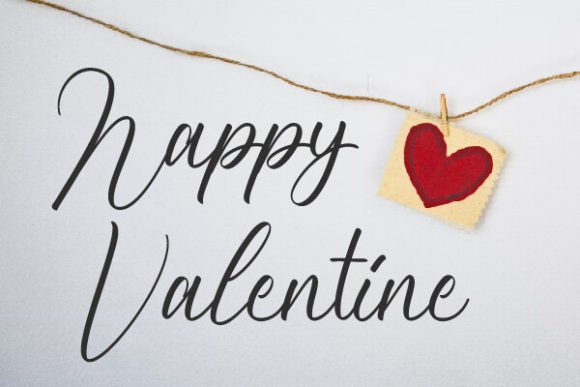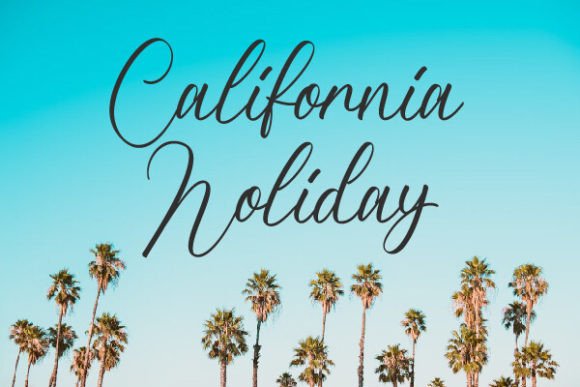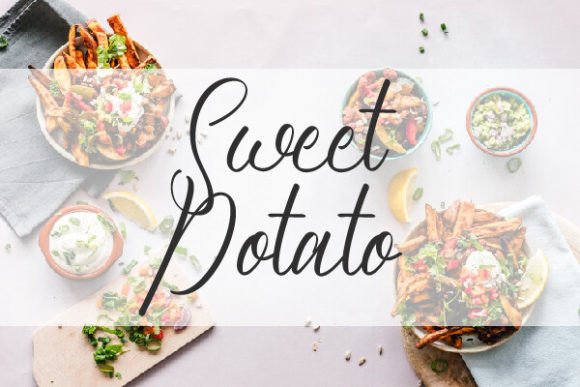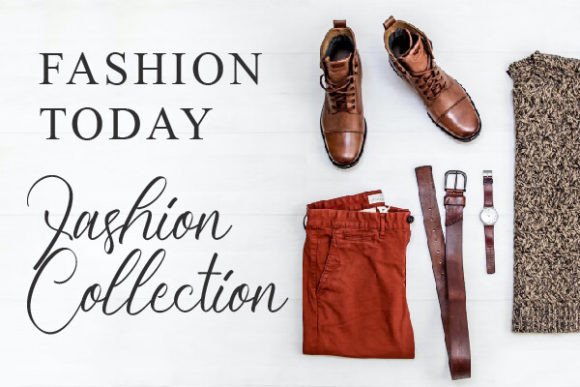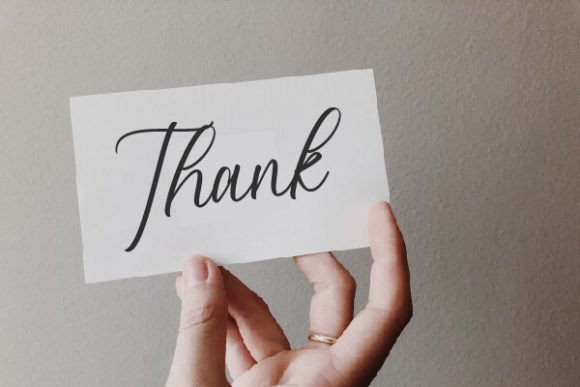
The Art of Elegant Design: Discovering the Timeless Charm of Gralynda Font
Have you ever sat down with a blank page, a pen, and a vision, only to be swept away by the possibilities of what could be? For designers, this moment of creative freedom is a thrill unlike any other. It’s the spark that ignites the flame of inspiration, and it’s precisely this spark that the Gralynda Font is designed to fan into a roaring fire.
With its flowing strokes and classic charm, the Gralynda Font adds a touch of sophistication to any design. This beautiful calligraphy font is ideal for invitations, cards, and decorative text, effortlessly capturing the artistry of calligraphy. Whether you’re a seasoned designer or just starting out, the Gralynda Font is a valuable addition to your toolkit, offering a timeless and stylish appeal that elevates every word into a work of art.
Gralynda Font Key Features
- Font Family: Gralynda Font is a beautiful, elegant script font.
- Size: The font contains 400 glyphs, including uppercase and lowercase letters, numbers, and punctuation marks.
- Unique Characteristics: Gralynda Font features swashes, alternate letters, and ligatures to create a unique and sophisticated look.
Gralynda Font Review
Overall, I think Gralynda Font is a unique and stylish addition to any design project. It has a certain whimsical quality that can add a touch of magic to your text. ✨
- Its hand-drawn feel is perfect for creative and artistic projects.
- The font’s fluidity and smooth lines make it easy to read, even at smaller font sizes.
- Gralynda Font is highly versatile and can be used for a wide range of applications, from branding to publishing.
However, like any font, Gralynda has its limitations. ⚠️
- The font may not be suitable for formal or professional settings, as its playful nature may come across as unprofessional.
- Some letters, such as ‘k’ and ‘q’, may be difficult to read at certain font sizes or angles.
- Gralynda Font may not be compatible with all operating systems or devices, which could cause display issues.
Overall, I think Gralynda Font is a great choice for designers who want to add a touch of personality to their projects. While it may have some limitations, its unique style and versatility make it a valuable addition to any design library.
Tips for Getting the Most Out of Gralynda Font
To get the most out of Gralynda Font, use it for:
- Emphasizing headings and titles
- Creating a unique and stylish brand identity
- Adding a touch of elegance to your designs
Alternatives to Gralynda Font
Great Vibes is a beautiful, handwritten script font that is perfect for adding a touch of elegance to your designs. It is ideal for use in titles, headings, and quotes, and is particularly well-suited for wedding invitations, greeting cards, and other formal or creative projects.
Compared to Gralynda Font, Great Vibes has a more refined and sophisticated feel, with a focus on legibility and readability. While Gralynda Font is a bit more ornate and decorative, Great Vibes is more understated and elegant.
Alex Brush is a elegant, handwritten script font that is perfect for use in titles, headings, and quotes. It is ideal for use in creative projects, such as book covers, magazine layouts, and advertising materials.
Compared to Gralynda Font, Alex Brush has a more classic and timeless feel, with a focus on elegance and sophistication. While Gralynda Font is a bit more modern and trendy, Alex Brush is more traditional and refined.
Dancing Script is a fun, playful script font that is perfect for use in titles, headings, and quotes. It is ideal for use in creative projects, such as party invitations, social media graphics, and advertising materials.